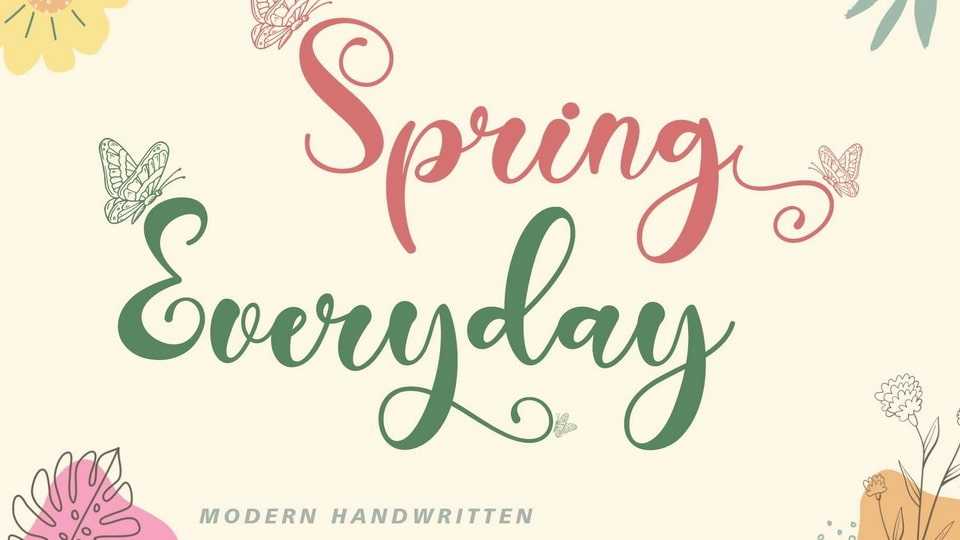
Download Spring Everyday font, an exclusive and refined handwritten typeface. With its elegant strokes and refined details, it adds a touch of luxury to any design project.